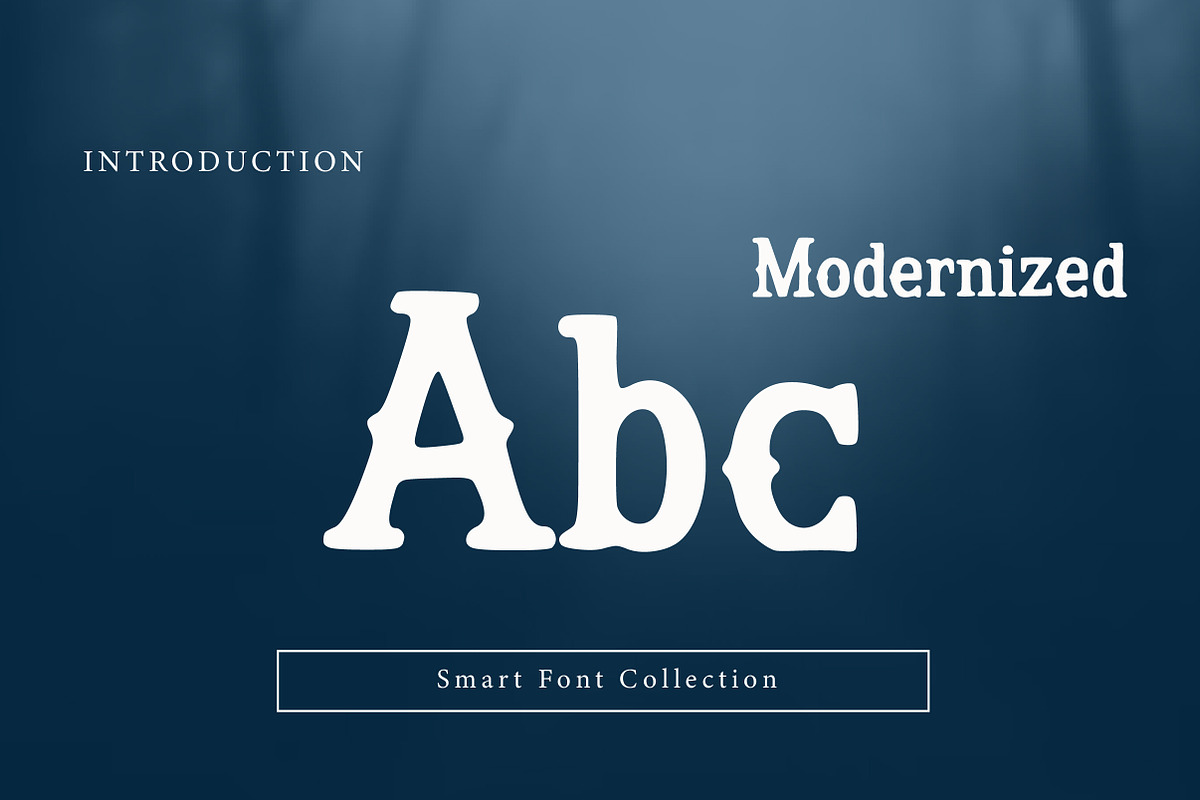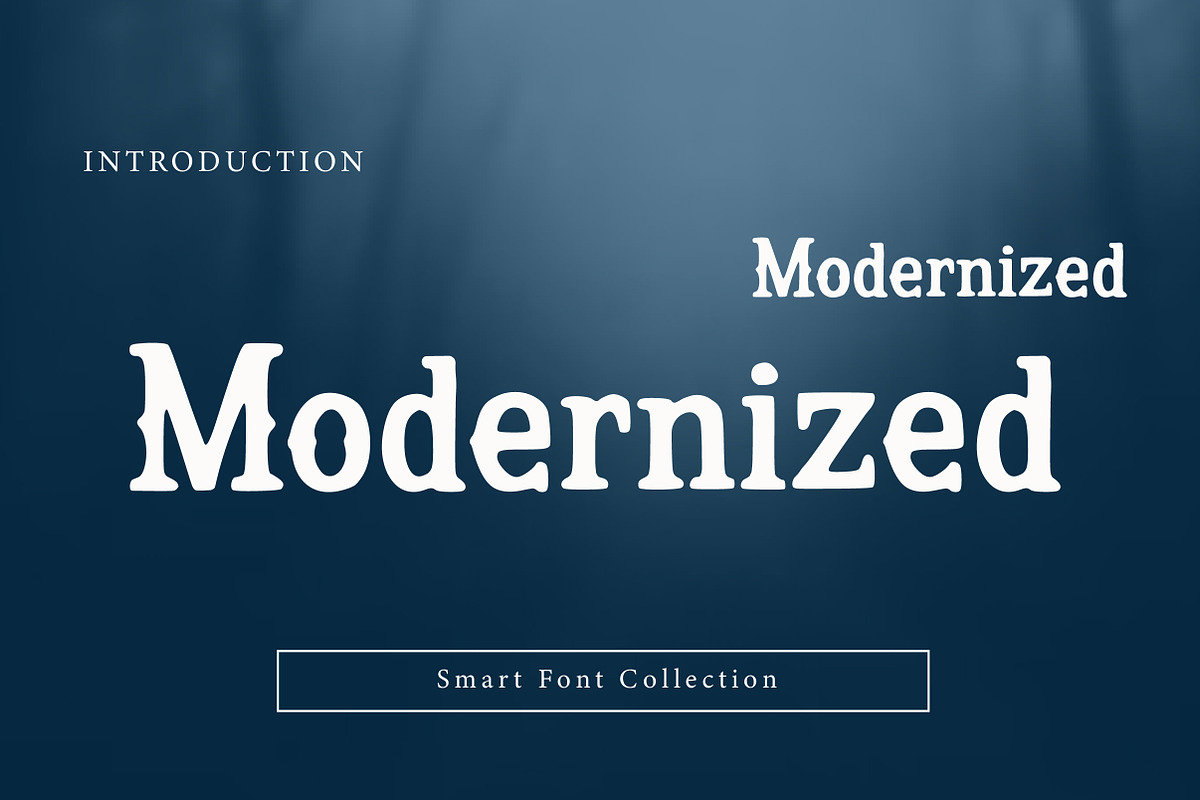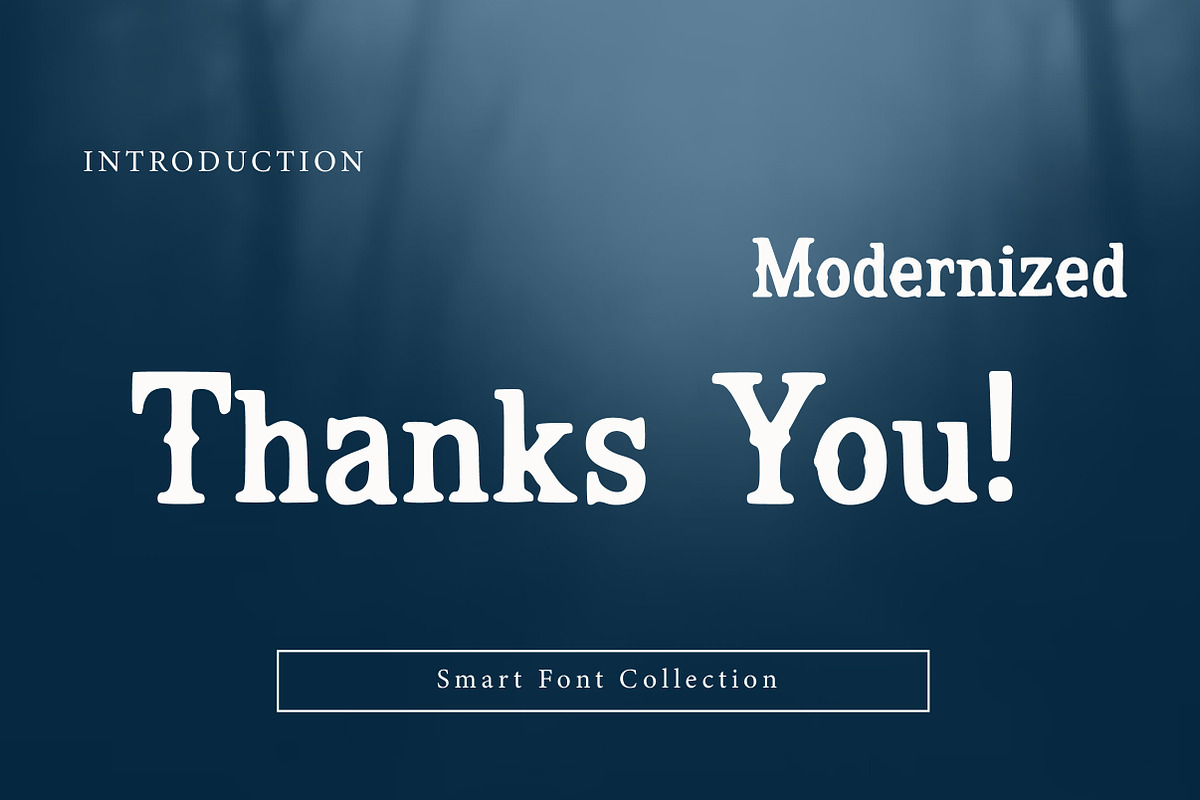
Modernized
Modernized is a bold, clean serif display font with a contemporary vintage feel. It combines classic serif shapes with smooth, slightly softened details—making it perfect for elegant headlines that still feel modern and fresh.
Use it for branding, logos, packaging, labels, editorial titles, posters, book covers, invitations, signage, and quote designs. Modernized delivers a confident, stylish look that works great for both minimalist layouts and retro-inspired designs.
Perfect for: Boutique branding, product labels, magazine-style headlines, modern vintage projects, and classy typography.